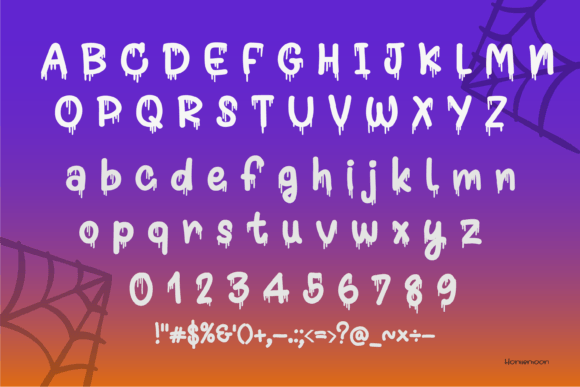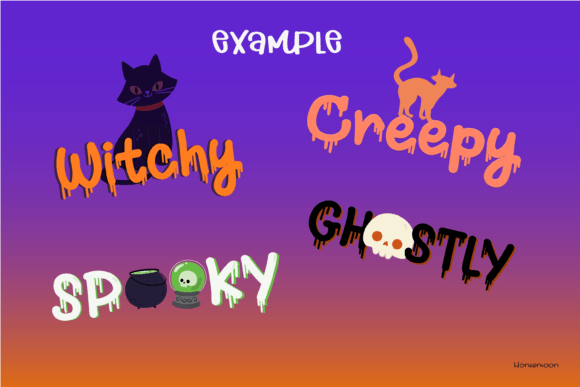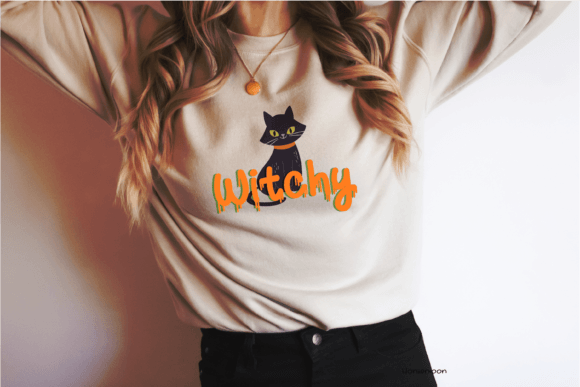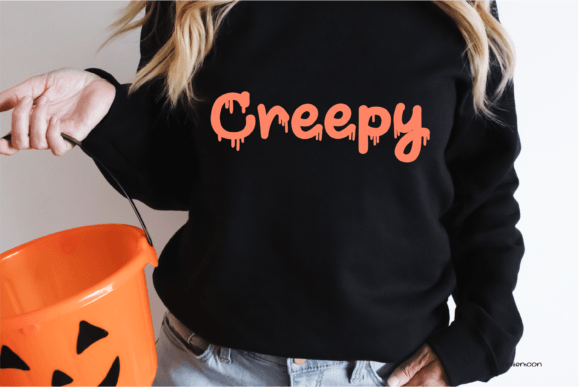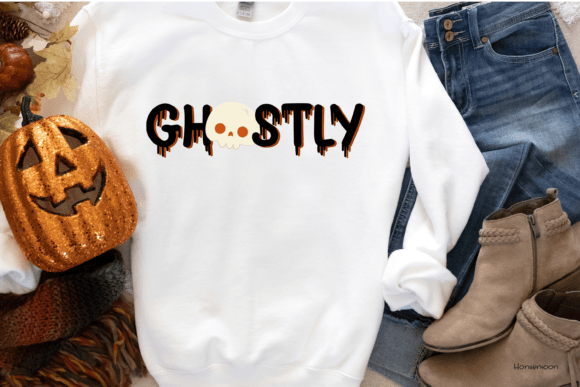
Introduction to Eeriest Font
Eeriest is a fun display font, perfect for your favorite projects such as posters, flyers, social media, movie and book titles, invitations, stickers and so much more.
Key Features of Eeriest Font
Why Choose Eeriest Font?
Eeriest Font offers exceptional quality and versatility, making it a valuable addition to your design toolkit. Whether you’re creating for personal projects or commercial use, Eeriest Font delivers professional results.